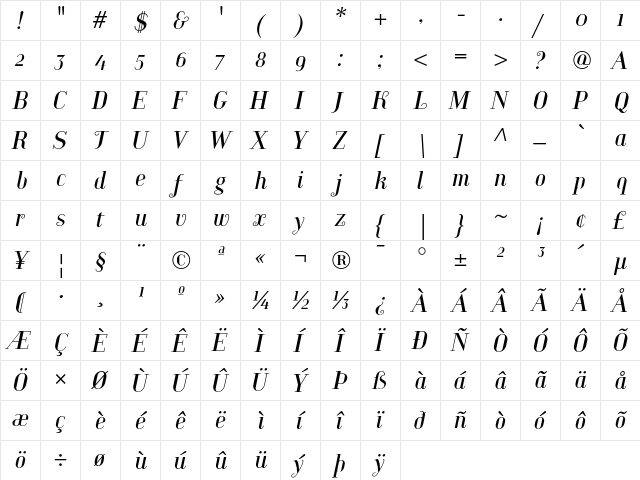
Compass TRF Italic Font Preview
Compass TRF Italic
Compass TRF Italic Font Details
| Foundry | Ramiz Guseynov |
| Designer | ????? ???????? |
Design Context for Compass TRF Typeface
Compass TRF is a composed and adaptable typeface that performs quietly and consistently across a wide range of design contexts. Its italic angle brings a sense of urgency and motion to the letterforms.
Pro Tip: Try Compass TRF for annotation and caption copy alongside an upright companion — the contrast in angle creates a dynamic but ordered typographic system.